TypeTalk: The Word on Indents, Hyphenation, Leading, and Finding Fonts
Tabs vs. Indents
Q. Tabs in InDesign confuse me. Often I get inconsistent results when using them to indent paragraphs. Can you help?
A. It’s a good question that brings up a widely unused feature of most design software. Scott Citron, designer and Adobe Certified Instructor, says that your problem, which is fairly common, “stems from the notion that tabs are used to indent the beginning of paragraphs. This habit is a holdover from the old typewriter days when tabs were used for that purpose. But when setting type by computer, or specifically in InDesign, you should always control paragraph indents using the First Line Indent command in the Paragraph palette. Typically the amount of the indent is determined by the length, or measure, of the line. Shorter measures require small indents; longer measures suggest larger indents. There are many rules of thumb about how to determine the precise value of the indent, but frankly, I just use my eye.”
Figure 1 shows the Paragraph palette in InDesign CS2.
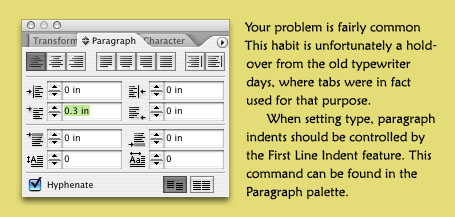
Figure 1. Look for InDesign’s First Line Indent feature in the Paragraph palette (left). The second paragraph of the text (right) has a .3 inch indent. Text is set in Monotype’s Maiandra Pro.
QuarkXPress handles paragraph indents in a similar way. Its First Line Indent feature is in the Paragraph Attributes dialog box (go to Style> Formats).
Hyphenation Harangue
Q. Why do so many magazines use hyphenation in rag-right mode? It’s especially irritating with wide measure type. These magazines are pretty but very difficult to read. Are designers that ignorant of old-fashioned typographic principles?
A. How refreshing that you notice these typographic details! In fact, therein lies part of the problem: Many creative professionals aren’t trained to notice the details that contribute to fine typography and therefore don’t always make conscious decisions about them. (Prior to the digital age, typography was the responsibility of a highly skilled person who worked in a type shop and set type for a living.)
Today’s design software has built-in defaults that control hyphenation. Most defaults are set with hyphenation turned on, and depending on which software you use, are preset to allow two-letter hyphenations, as well as anywhere from three to unlimited hyphenations in a row. Since most designers are not trained typographers, they’re either not aware that they can adjust these defaults or that there’s any reason to do so.
While hyphens are often a necessary evil in narrow columns to create a pleasing rag, wide columns can often go without hyphenations (as you mention), except for the occasional manually inserted hyphen to fix a bad rag here and there. To achieve this, you should turn off hyphenation, which will still allow for manual adjustments. For optimum results, this approach does require a designer’s keen eye to review all the rags and the time to adjust them as necessary. For the record, when using hyphenations, I recommend changing the default settings to allow a minimum of three-letter hyphenations and no more than two in a row.
To Auto Lead or not to Auto Lead?
Q. Why does the leading of a line or a paragraph sometimes change when I add a dingbat, ornament, or some other enlarged character in text? It’s driving me and my coworkers nuts because we have no idea why it’s happening!
A. The culprit is your software’s auto leading, a time-saving feature that can also wreak havoc on your type. When auto leading is on, the program automatically assigns a leading (also called line spacing) value to text based on its point size. Most design software uses a default auto leading setting of 120 percent of the point size, which may result in a fractional value. For example, for 10-point type, the auto leading might be a nice, even 12 point; but for 11-point type, it becomes 13.2, for 12, it is 14.4, and for 14, it is 16.8.
Auto leading can be a real convenience when you’re experimenting with text type sizes because the line spacing adjusts proportionally and automatically. On the other hand, auto leading does have its pitfalls, and a mysterious and unexpected jump in leading is one of them (Figure 2).
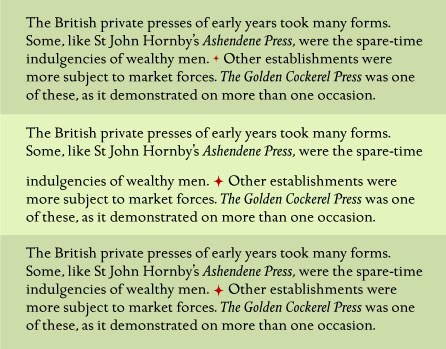
Figure 2. Top: This text contains an ornament as a paragraph separator, but it doesn’t change the auto leading because it’s set the same or a smaller point size as the surrounding text. The text and ornament are set in 15 point ITC Golden Cockerel with 18 point auto leading.
Middle: When the ornament is enlarged to 25 point, the auto leading for that line changes to 30 point, creating an unexpected “jump” in that line only.
Bottom: When the leading for the entire text is converted to a fixed leading of 18 point, the line spacing stays consistent. even though the ornament is still 25 point.
You’re in the fix you describe because you added a character with a larger point size than the surrounding text, which caused the auto leading to increase. The solution is to convert the leading to a fixed value. Once you do that, you can have glyphs of varying point sizes in a line without changes in the leading.
Two Font Search Queries, One Answer
Q. I am completing a boat signage project for the Tahoe Maritime Museum. The boats were primarily built in the 1920s and 30s. I am interested in using a typeface that correlates to that period, is nice to look at, and easy to read. Do you have any suggestions?